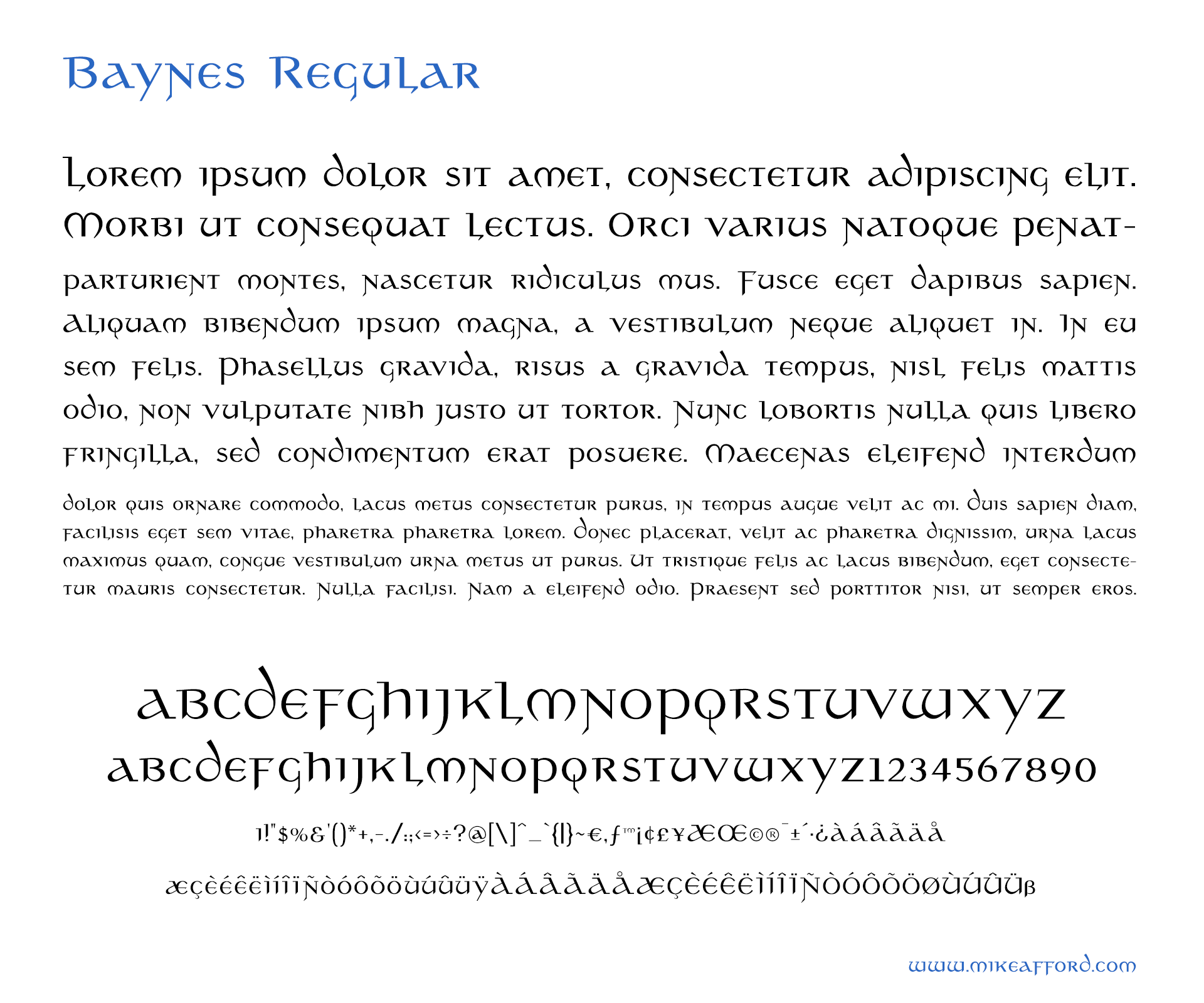
Baynes Regular
Tolkien font - Baynes regular
Truetype font inspired by the classic maps of Middle-earth by Pauline Baynes
Baynes regular - font example
Tolkien font - Baynes regular